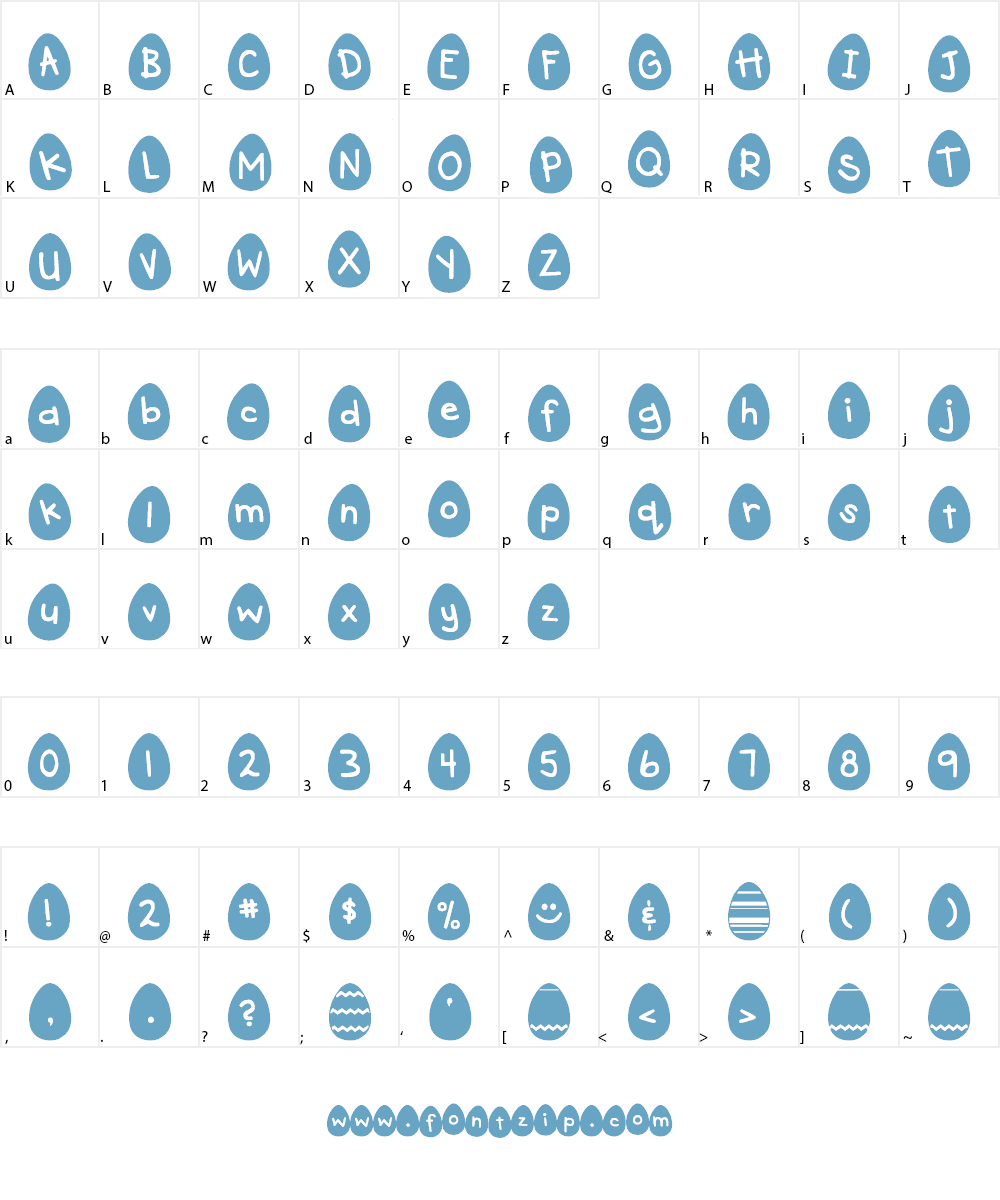
This font contains 2 .ttf fonts in straight and wobbly. Both contain full upper and lower case alpha, numbers, and most common punctuation plus several egg patterned dingbats.